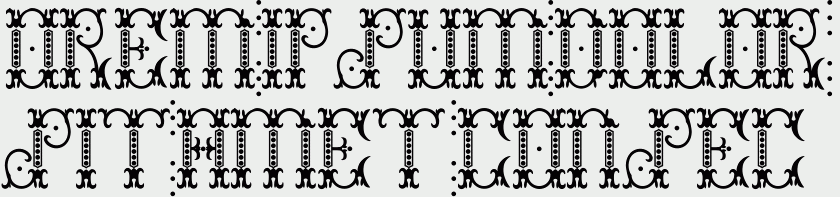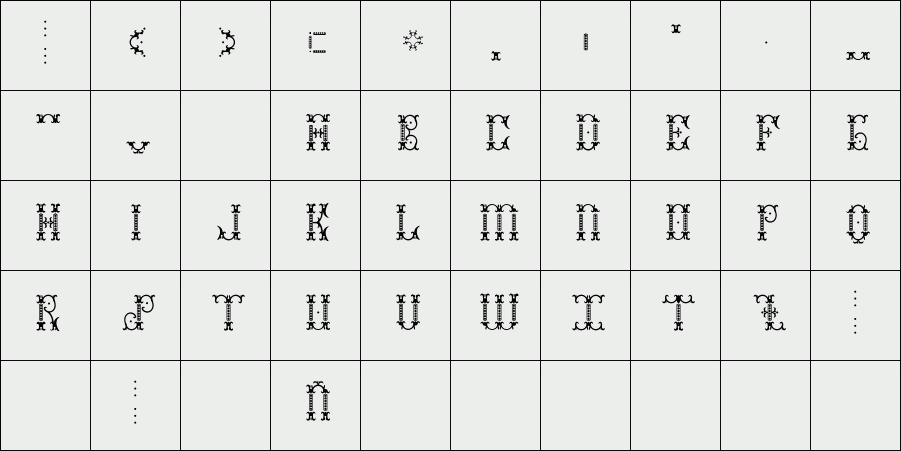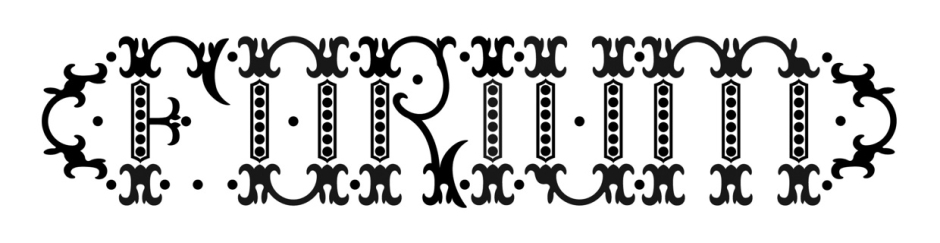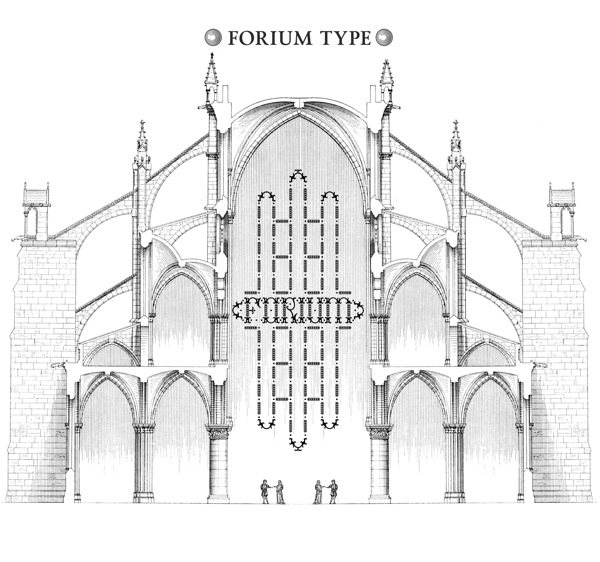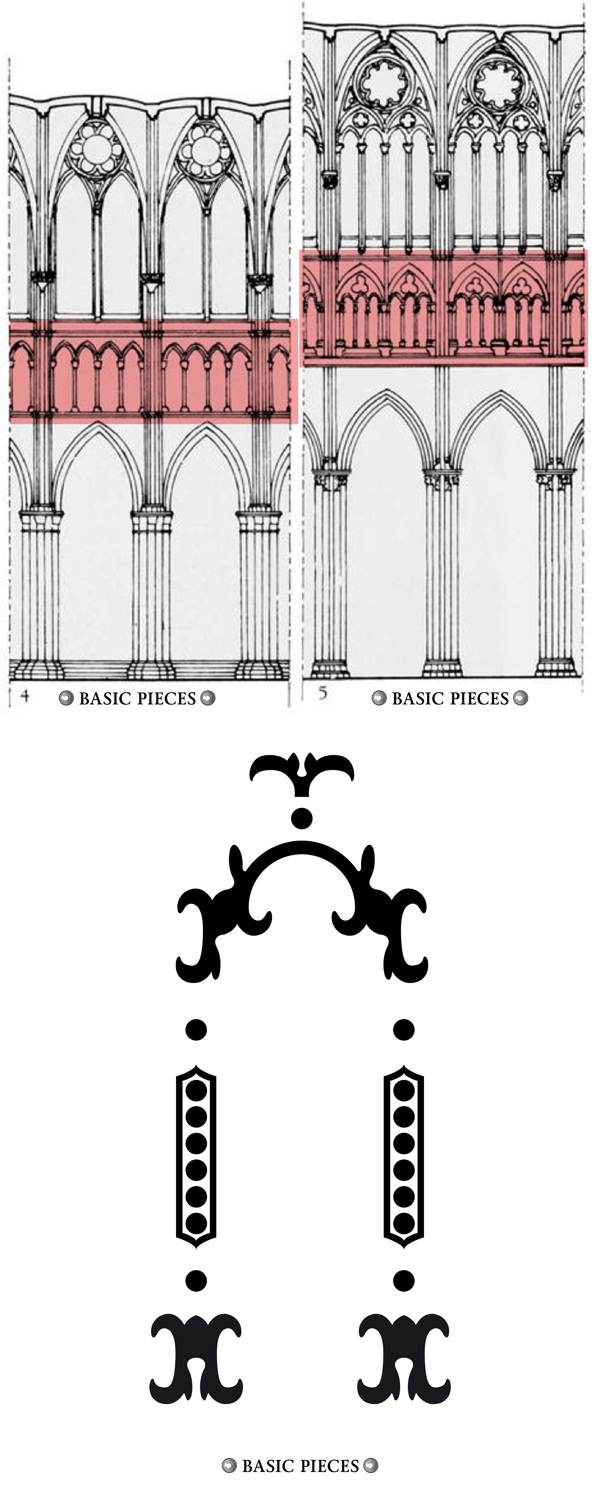
FORIUM
Forium typography is a decorative type for titles and names based on architecture triforium of gothic cathedrals, typography is a free download. "The idea is that those who can use it and download it apart to have constructive parts can be customized theirs'